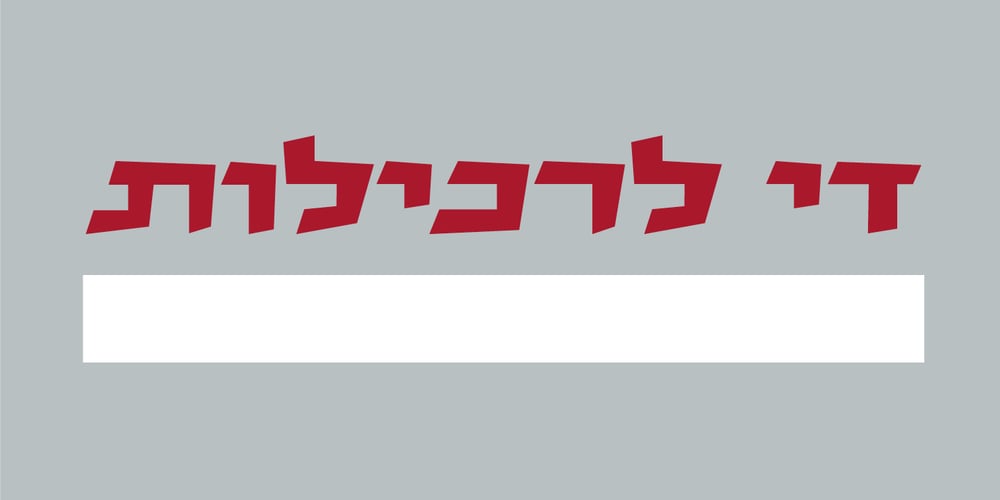
Metzada MF Font Family was designed by Dor Cohen and published by Masterfont. Metzada MF contains 1 styles and family package options. Metzada is a vivid choice when you want to effortlessly make your designs stand out with a remarkable sharp crafted typography.